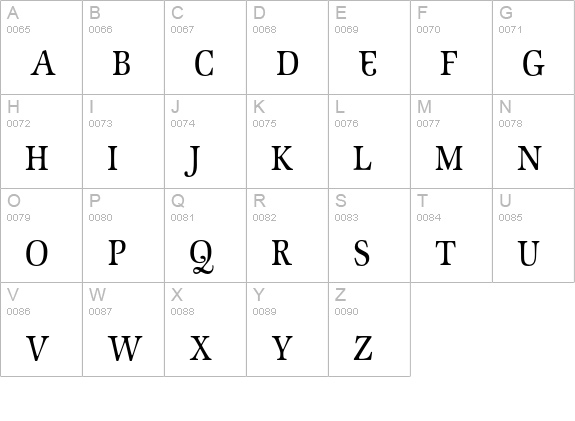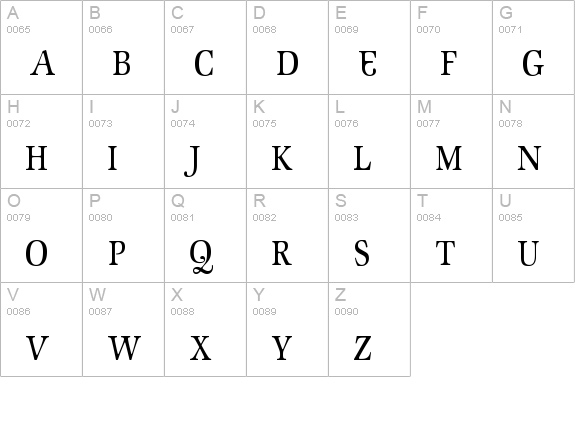
GeistSerifa Font Details
GeistSerifa is a modern and elegant serif font that exudes sophistication and professionalism. With its clean lines and classic design, GeistSerifa is versatile and perfect for a wide range of projects, from branding to editorial design. This timeless font is imbued with a sense of refinement and class, making it ideal for creating stylish and impactful designs. Whether you're working on a logo, a website, or a printed piece, GeistSerifa will elevate your project and give it a touch of elegance. What's more, GeistSerifa is available for free download at FontsMarket.com, making it accessible to designers and creatives everywhere. Don't miss out on the opportunity to add this beautiful font to your collection and enhance your designs with its timeless charm.